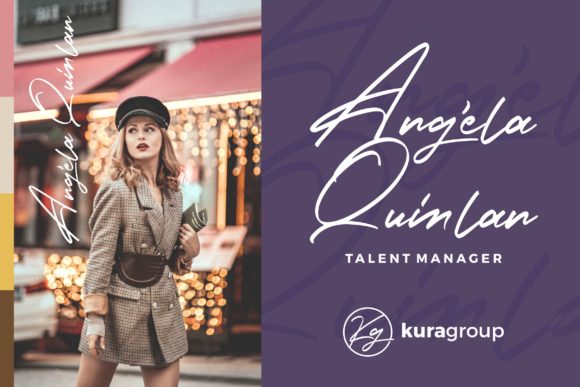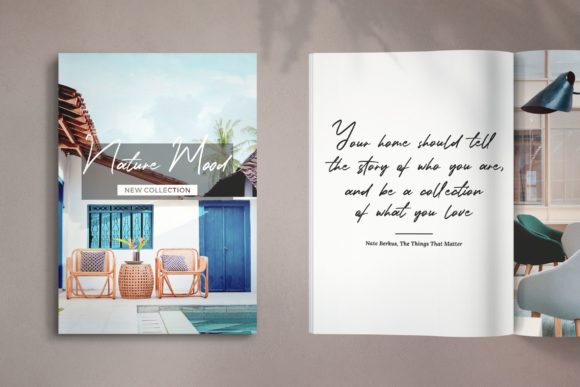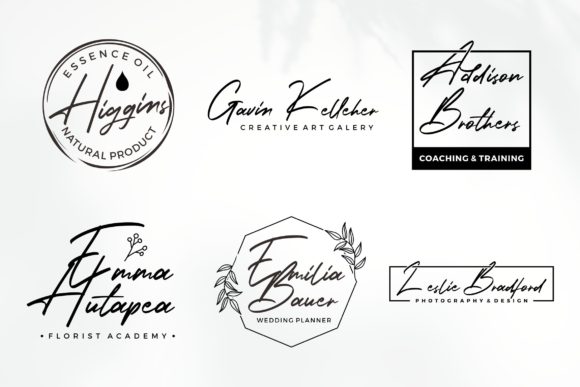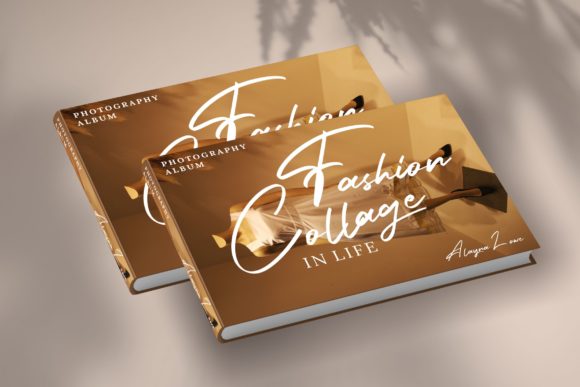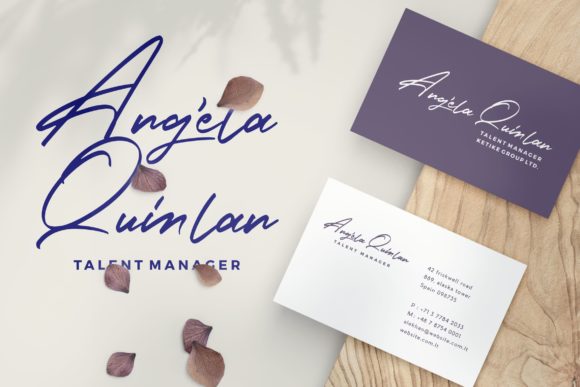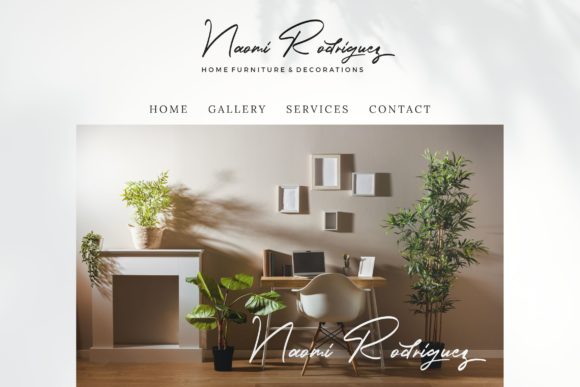
Introduction to Holland Gateway Font
Holland Gateway is a magical handwritten font carefully created with a touch of elegance.
It will elevate a wide range of design projects to the highest level, be it branding, headings, wedding designs, invitations, signatures, logos, labels, and much more .
Key Features of Holland Gateway Font
Why Choose Holland Gateway Font?
Holland Gateway Font offers exceptional quality and versatility, making it a valuable addition to your design toolkit. Whether you’re creating for personal projects or commercial use, Holland Gateway Font delivers professional results.